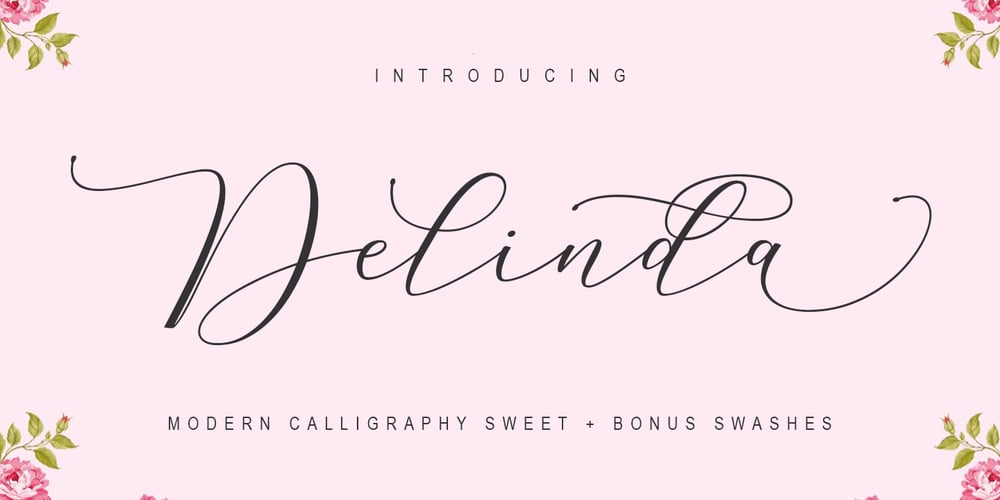
Delinda Script
Delinda Script font
Delinda Script Font Family was designed by Kurniadi Saputra and published by Cooldesignlab. Delinda Script contains 2 styles and family package options. Delinda Script is a beautiful and interesting calligraphy handwriting font. You can see from scratches that give a realistic and modern style. font looks sweet and full of the best characters. you can use this font in your design product range like invitation, mockup, embossed, branding card and others. Bonus is Extra Swashes. Delinda Script includes a full set of large and attractive international letters, numbers, punctuation and ligatures. All lowercase letters include the beginning and end of the swashes. Also, follow multilingual symbols. The script is encoded with PUA Unicode, which allows full access to all additional characters without special design software. Mac users can use Font Books, and Windows users can use Map Characters to view and copy additional characters to be included in your favorite text editor / app. Thank you for the purchase. CooldesignLab,